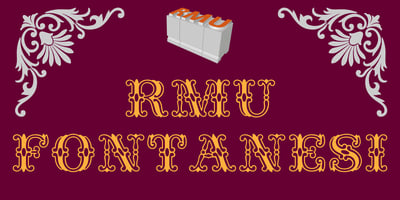
RMU Fontanesi
RMU Fontanesi font
RMU Fontanesi Font Family was designed by Ralph M. Unger and published by RMU. RMU Fontanesi contains 1 styles and family package options. This abundantly ornate former Nebiolo font was freshly designed and carefully extended for multilingual use.